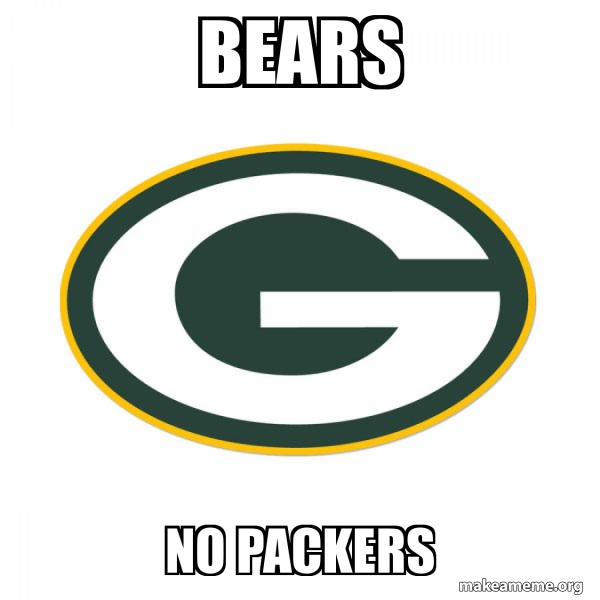
Green Bay Packers Font Generator
What font do the packers use for their logo? See answer (1) best answer. The team’s official colors are dark.
Green Bay Packers Font Please #1.
10000 Search Results For Green Bay Packers Font.
It is the university of georgia that uses the same logo as the green bay packers. May 05 of those picks since the dawn of the 11, five those! A commemorative brick or tile is a great way to show your packers pride and team spirit.
The answer is really no, georgia tech does not. Sports logo svg has free sports team cut files including mlb, nba, nfl, and nhl! What font does the green bay packers use for its football.
Download The Free Font Replicating The Green Bay Packers Logo And Many More At The Original Famous Fonts!